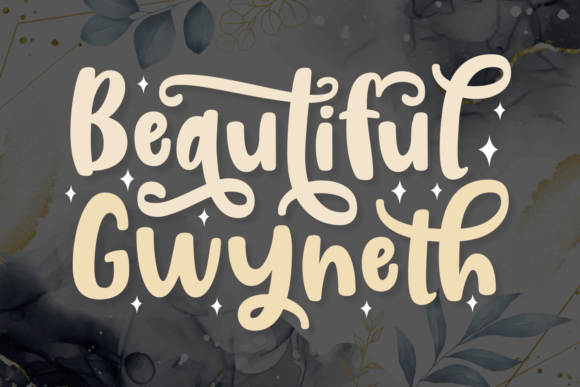
Unleash the Elegance of Your Designs with Beautiful Gwyneth Font - The Epitome of Sophistication and Grace
Embark on a typographic journey of sophistication and charm with the Beautiful Gwyneth Font. This exquisite script font, meticulously crafted by the talented Jasm (7NTypes), is a visual masterpiece that will elevate your designs to new heights.
Immerse yourself in the allure of Beautiful Gwyneth's graceful strokes and impeccable letterforms, reminiscent of classic calligraphy yet infused with a contemporary flair. Experience the seamless blend of tradition and modernity as this font effortlessly enhances your projects with a touch of refined elegance.
With Beautiful Gwyneth's versatile nature, the possibilities are endless. Its inherent charm makes it an ideal choice for crafting heartfelt thank-you cards, adding a personal touch to wedding invitations, or designing elegant logos that exude timeless appeal. Unleash your creativity and let Beautiful Gwyneth transform your projects into works of art.
Accessing the full spectrum of Beautiful Gwyneth's glyphs and ligatures is a breeze, thanks to its PUA encoding. Effortlessly incorporate stunning swashes, charming alternates, and captivating ligatures to add depth and dimension to your designs.